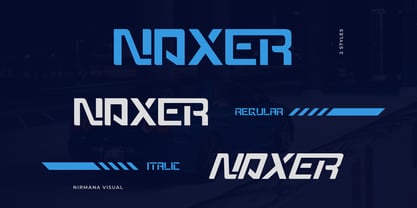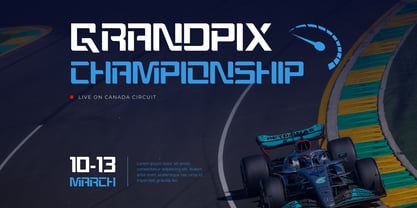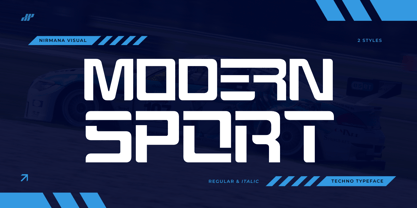
Modern Sport
por Nirmana Visual
A família de fontes Modern Sport foi desenhada por Sigit Dwipa e publicada pela Nirmana Visual. Modern Sport contém 2 estilos e opções de pacote familiar. Saiba mais sobre esta família
Modern Sport is a dynamic typeface with a special techno concept, designed for high-impact visuals. It features both regular and italic styles, offering versatility and boldness for any creative need. Perfect for logos and branding, this font combines futuristic edges with athletic energy, making it ideal for sports, gaming, and tech-related designs. Its sleek form ensures your brand stands out with power and precision.
Designers: Sigit Dwipa
Fundição: Nirmana Visual